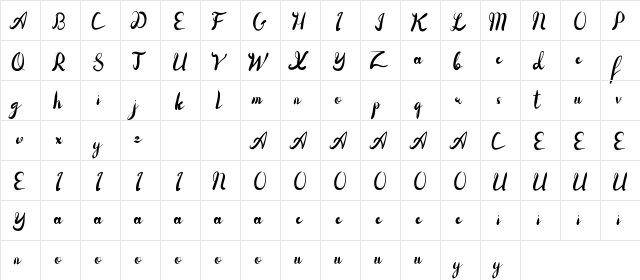
Selfies Demo Script Regular
| Foundry | Edric Studio |
| Designer | muhamad Nouval fr & Muhamad Lukman |
Design Context for Selfies Demo Script Typeface
Selfies Demo Script brings a calligraphic fluidity to the page — its connecting strokes and expressive curves give it an unmistakably human quality.